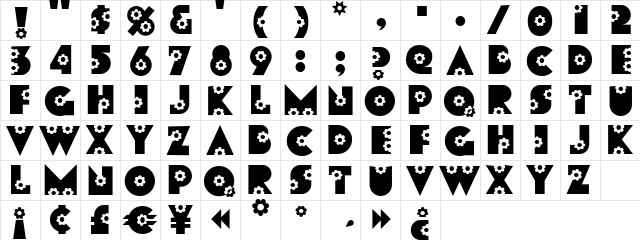
Romashka Deco Regular
| Designer | Gophmann A.L. (cyr.code page) |
Design Context for Romashka Deco Typeface
Romashka Deco is a composed and adaptable typeface that performs quietly and consistently across a wide range of design contexts.